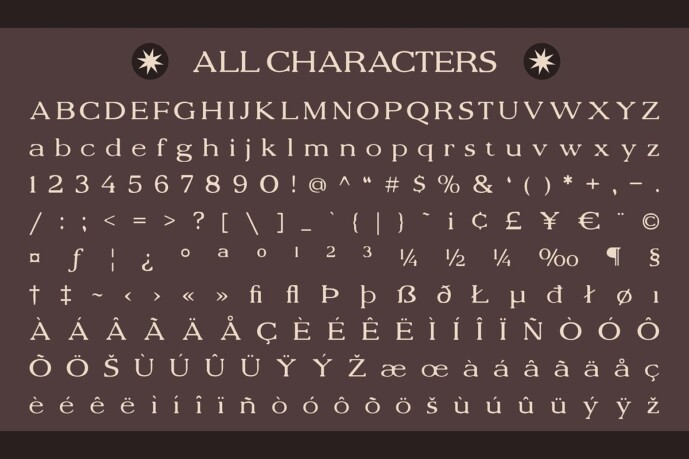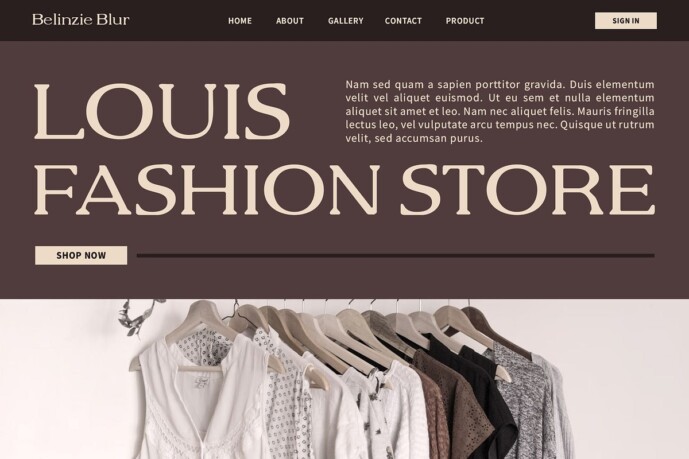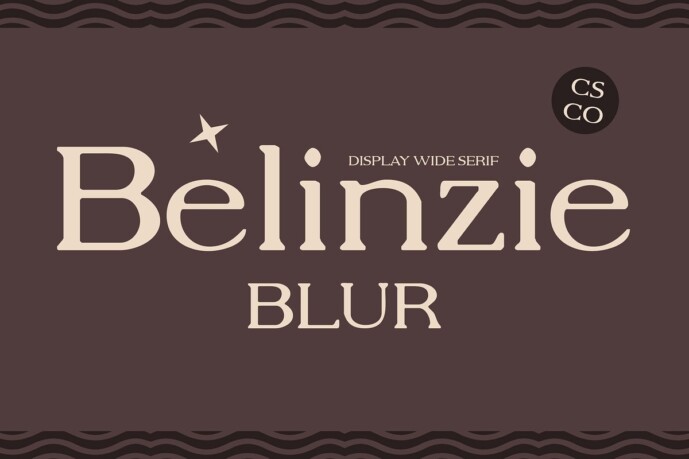
Belinzie Blur Font
Belinzie Blur Font is a modern serif font with an elegant style, wide font, and blur effect, typically suitable for designs aiming to convey a luxurious, modern, and experimental impression. Using this font can add a luxurious and experimental touch to your designs, creating a unique and attention-grabbing impression.
With its elegant style and blur effect, Belinzie Blur Font is ideal for projects that require a touch of luxury and sophistication. Whether used in branding, packaging, or editorial design, this font adds a sense of elegance and refinement to your designs.
Belinzie Blur Font prioritizes modernity, ensuring that your designs are both sleek and stylish. Its wide font and blur effect add a contemporary and experimental element that sets your designs apart from the rest.
Whether you’re creating a high-end fashion magazine, designing a luxury brand logo, or developing a sleek website, this font is the perfect choice for projects that demand a luxurious and modern look. Its blur effect adds a unique and experimental touch that captivates viewers and leaves a lasting impression.
Elevate your designs with Belinzie Blur Font and blur the lines between luxury and experimentation.